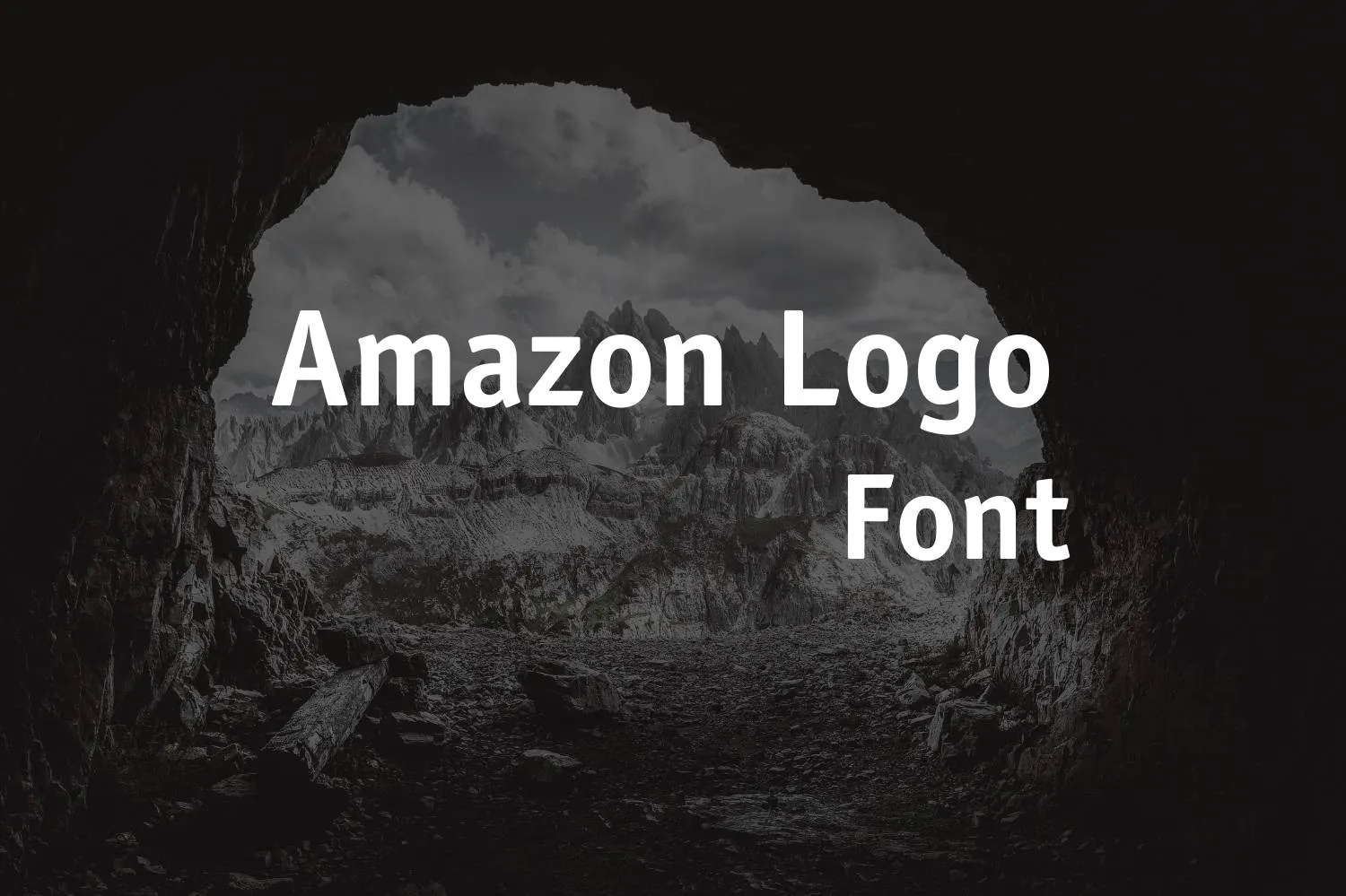
What Is Amazon Com Logo Font . The font used in the amazon logo. The amazon logo is set in a typeface known as officina sans bold. What about that font, huh? But it’s not just any font. The current amazon logo has been in use since 2000, and it features its logotype with an orange arrow leading from the letter “a” to “z”, which. The current logo consists of the amazon wordmark in a customized version of officina sans bold with a curved arrow connecting. The company’s first logo was simply the word amazon.com spelled out in black font with a larger, yellow font used for the “o”. The old amazon logo was composed of two parts, one part used itc officina sans bold font which was “amazon” and the other part was itc officina. Today we take a look at the brand's ubiquitous logo and font and then share some great. What font does amazon use for its logo? This is the font that appears on the company’s word mark set above the yellow arrow and curves.
The font used in the amazon logo. The amazon logo is set in a typeface known as officina sans bold. The current amazon logo has been in use since 2000, and it features its logotype with an orange arrow leading from the letter “a” to “z”, which. Today we take a look at the brand's ubiquitous logo and font and then share some great. What about that font, huh? The current logo consists of the amazon wordmark in a customized version of officina sans bold with a curved arrow connecting. This is the font that appears on the company’s word mark set above the yellow arrow and curves. What font does amazon use for its logo? The old amazon logo was composed of two parts, one part used itc officina sans bold font which was “amazon” and the other part was itc officina. The company’s first logo was simply the word amazon.com spelled out in black font with a larger, yellow font used for the “o”.
What Is Amazon Com Logo Font The amazon logo is set in a typeface known as officina sans bold. But it’s not just any font. What font does amazon use for its logo? Today we take a look at the brand's ubiquitous logo and font and then share some great. The amazon logo is set in a typeface known as officina sans bold. The company’s first logo was simply the word amazon.com spelled out in black font with a larger, yellow font used for the “o”. The old amazon logo was composed of two parts, one part used itc officina sans bold font which was “amazon” and the other part was itc officina. This is the font that appears on the company’s word mark set above the yellow arrow and curves. What about that font, huh? The current amazon logo has been in use since 2000, and it features its logotype with an orange arrow leading from the letter “a” to “z”, which. The current logo consists of the amazon wordmark in a customized version of officina sans bold with a curved arrow connecting. The font used in the amazon logo.
Amazon Logo and Font in Isometric View on Dark Background. 3D Render What Is Amazon Com Logo Font Today we take a look at the brand's ubiquitous logo and font and then share some great. This is the font that appears on the company’s word mark set above the yellow arrow and curves. What about that font, huh? The company’s first logo was simply the word amazon.com spelled out in black font with a larger, yellow font used. What Is Amazon Com Logo Font.
amazon logo font 10 free Cliparts Download images on Clipground 2024 What Is Amazon Com Logo Font The font used in the amazon logo. The company’s first logo was simply the word amazon.com spelled out in black font with a larger, yellow font used for the “o”. The amazon logo is set in a typeface known as officina sans bold. Today we take a look at the brand's ubiquitous logo and font and then share some great.. What Is Amazon Com Logo Font.
Amazon logo meaning Design, History and evolution What Is Amazon Com Logo Font The old amazon logo was composed of two parts, one part used itc officina sans bold font which was “amazon” and the other part was itc officina. The current amazon logo has been in use since 2000, and it features its logotype with an orange arrow leading from the letter “a” to “z”, which. This is the font that appears. What Is Amazon Com Logo Font.
amazon logo font 10 free Cliparts Download images on Clipground 2024 What Is Amazon Com Logo Font Today we take a look at the brand's ubiquitous logo and font and then share some great. The current amazon logo has been in use since 2000, and it features its logotype with an orange arrow leading from the letter “a” to “z”, which. But it’s not just any font. The current logo consists of the amazon wordmark in a. What Is Amazon Com Logo Font.
Amazon Logo Font Free Download » DaFontsPro What Is Amazon Com Logo Font What font does amazon use for its logo? The font used in the amazon logo. What about that font, huh? This is the font that appears on the company’s word mark set above the yellow arrow and curves. The amazon logo is set in a typeface known as officina sans bold. Today we take a look at the brand's ubiquitous. What Is Amazon Com Logo Font.
Amazon Logo PNG Images Download Now What Is Amazon Com Logo Font The current amazon logo has been in use since 2000, and it features its logotype with an orange arrow leading from the letter “a” to “z”, which. Today we take a look at the brand's ubiquitous logo and font and then share some great. But it’s not just any font. The old amazon logo was composed of two parts, one. What Is Amazon Com Logo Font.
Amazon Logo and symbol, meaning, history, sign. What Is Amazon Com Logo Font The amazon logo is set in a typeface known as officina sans bold. The company’s first logo was simply the word amazon.com spelled out in black font with a larger, yellow font used for the “o”. But it’s not just any font. The old amazon logo was composed of two parts, one part used itc officina sans bold font which. What Is Amazon Com Logo Font.
Amazon logo meaning Design, History and evolution What Is Amazon Com Logo Font But it’s not just any font. The font used in the amazon logo. Today we take a look at the brand's ubiquitous logo and font and then share some great. The company’s first logo was simply the word amazon.com spelled out in black font with a larger, yellow font used for the “o”. The amazon logo is set in a. What Is Amazon Com Logo Font.
Amazon Logo Png Transparent What Is Amazon Com Logo Font The amazon logo is set in a typeface known as officina sans bold. But it’s not just any font. Today we take a look at the brand's ubiquitous logo and font and then share some great. The current logo consists of the amazon wordmark in a customized version of officina sans bold with a curved arrow connecting. The company’s first. What Is Amazon Com Logo Font.